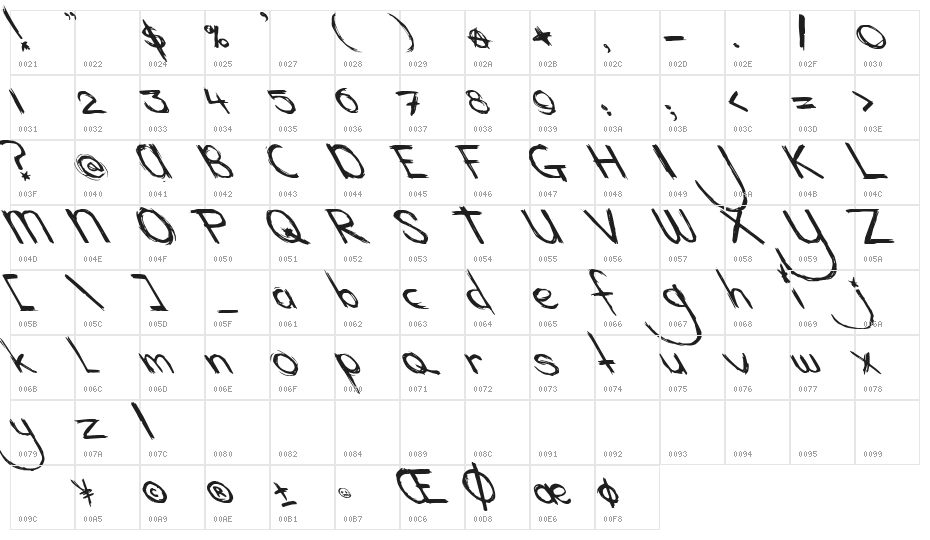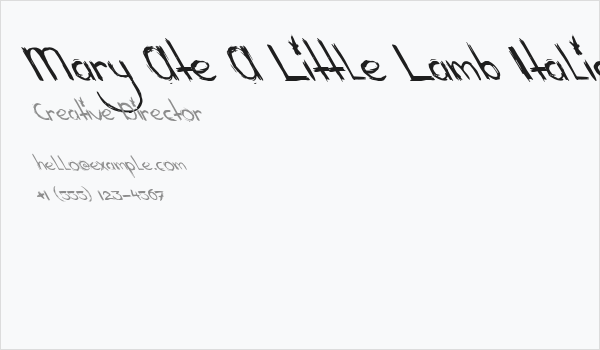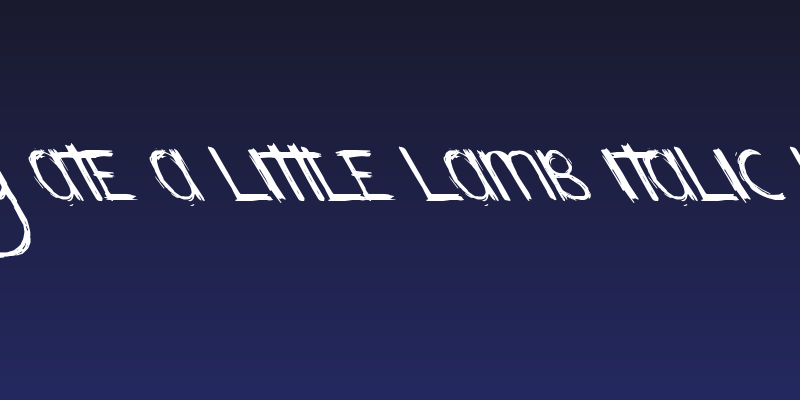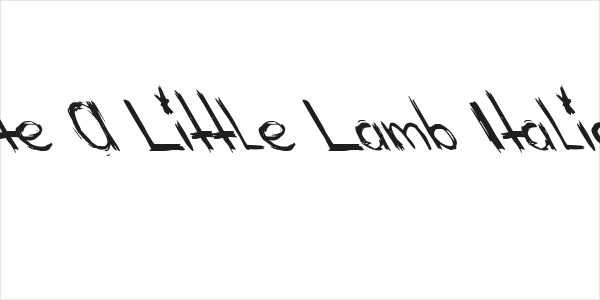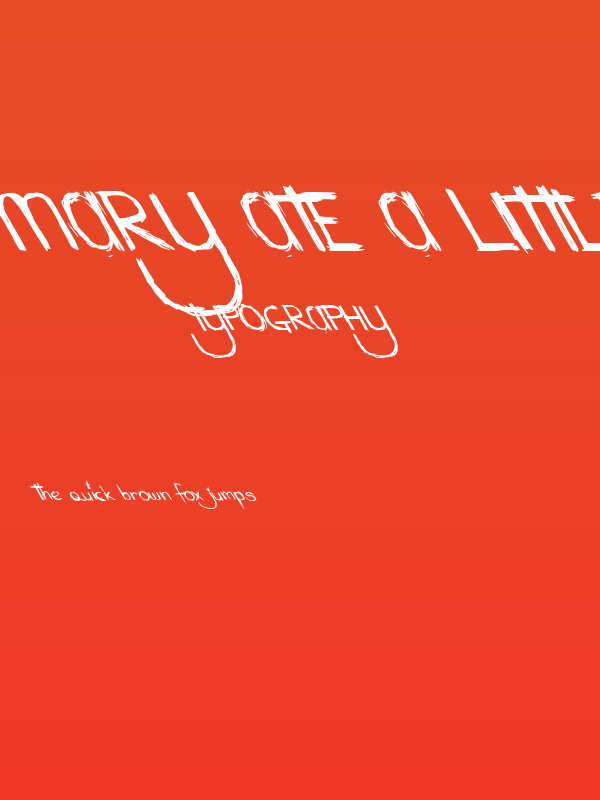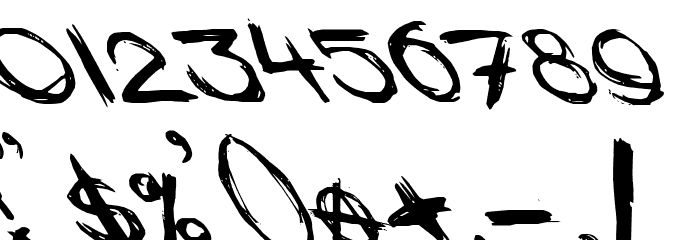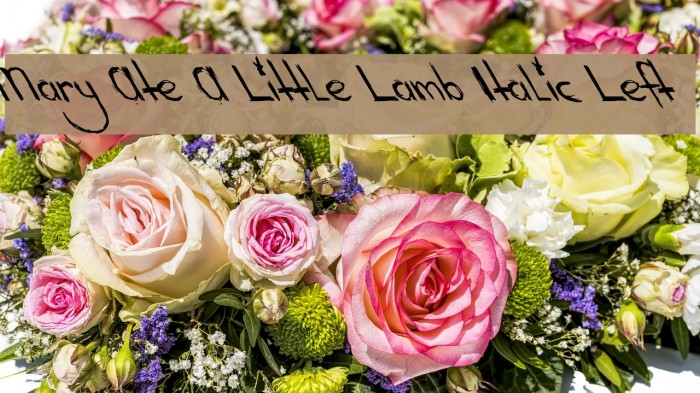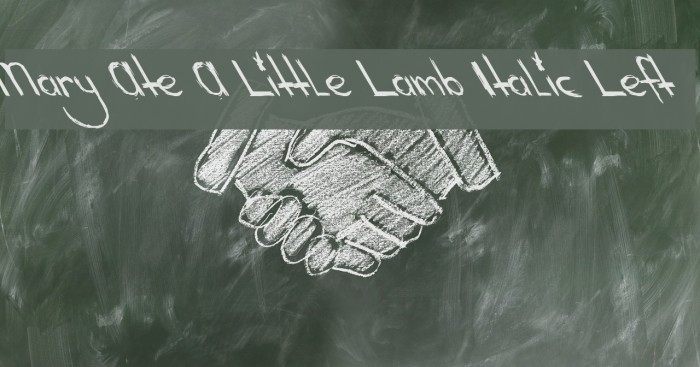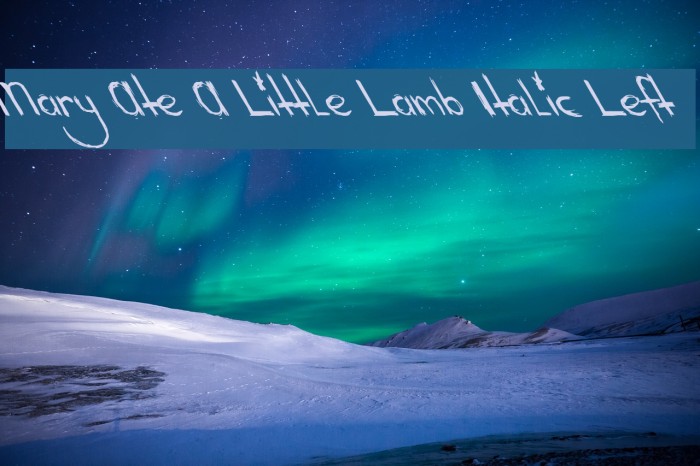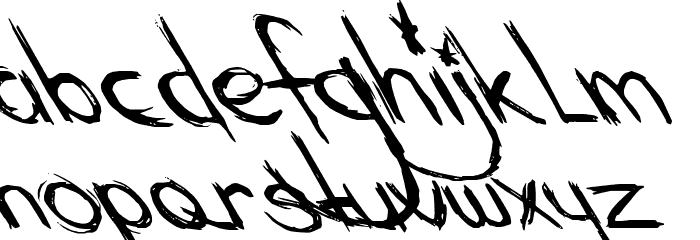
Mary Ate A Little Lamb Italic Left Font
Mary Ate A Little Lamb Italic Left Description
This font features a dynamic and expressive style with a handwritten appearance. The characters are slanted to the left, giving it an italicized look. The strokes are bold and uneven, with a brush-like texture that adds a sense of movement and energy. The uppercase and lowercase letters maintain a consistent style, while the numbers and special characters integrate seamlessly. This font's unique character makes it stand out, suitable for creative and artistic projects.
| Use Case | Headlines, Logos, Artistic projects |
| Proposed Projects | Ideal for artistic projects, posters, album covers, and creative branding that require a bold and expressive touch. |